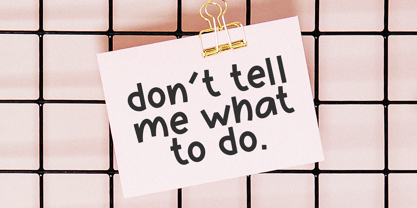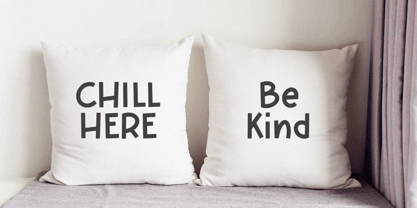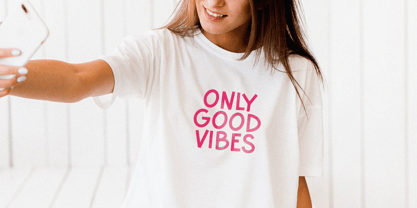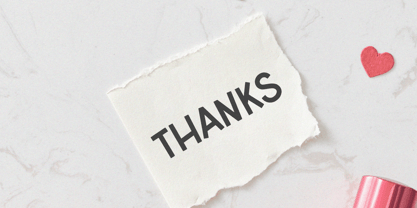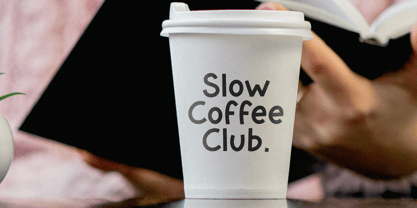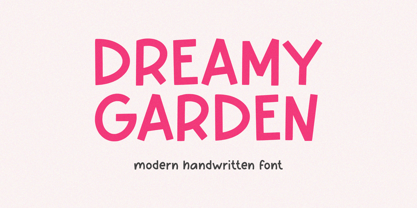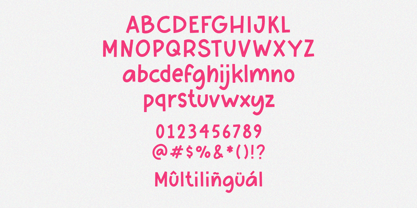
Dreamy Garden
The Dreamy Garden Font Family was designed by Ibnu Nur Rahman and published by Timurtype. Dreamy Garden contains 1 styles. More about this family
Dreamy Garden is a Modern Handwritten Font
This font is a modern handwritten font that blends elegant curves with a natural flowing style, creating a soft and stylish look for any creative project. Perfect for branding, invitations, social media, logos, and quotes, this font adds a charming touch with its smooth handwritten aesthetic.\
Dreamy Garden Font also supports multilingualism